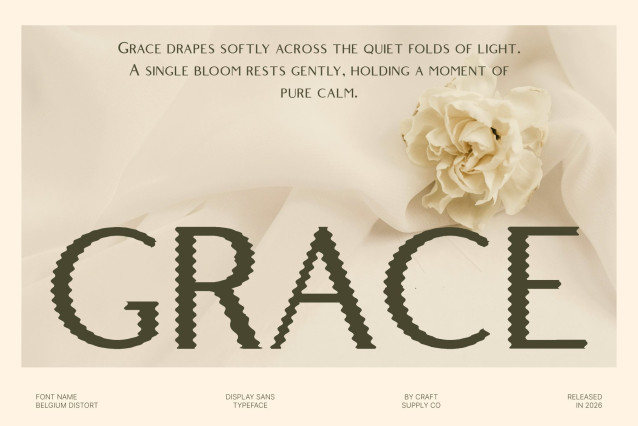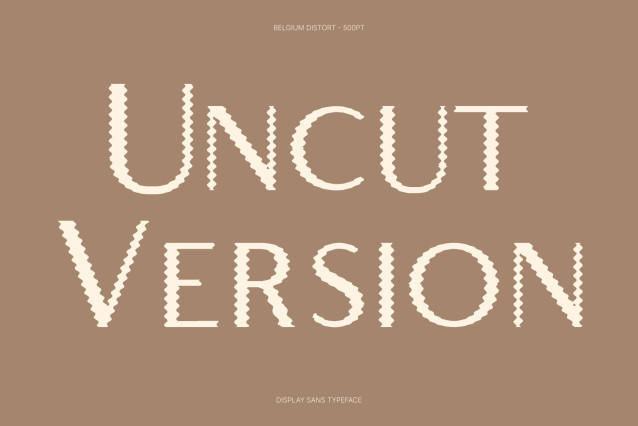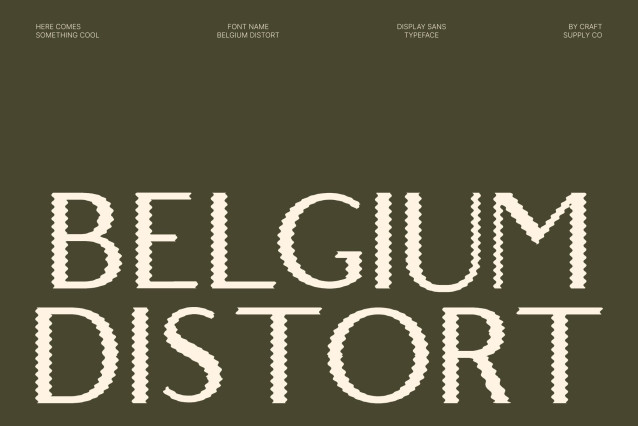
Belgium Distort – Modern Sans Serif Display Font: Where Contemporary Elegance Meets Fluid Distortion
Clean Contemporary Forms with Refined Modern Appeal
This is a modern sans serif display font designed with sleek contemporary aesthetics and refined visual balance. Its clean structure and stylish proportions create a sophisticated appearance that feels modern, elegant, and highly professional. Every character carries a polished personality, making the font perfect for premium branding and visually refined creative projects.
Distort Effect with Organic Flowing Motion
This font features fluid organic contours along the letter edges that create a subtle melting effect. This expressive detailing introduces graceful movement, artistic softness, and visual depth while preserving the font’s clean contemporary structure. The result is a dynamic and immersive appearance that feels modern, elegant, and creatively expressive.